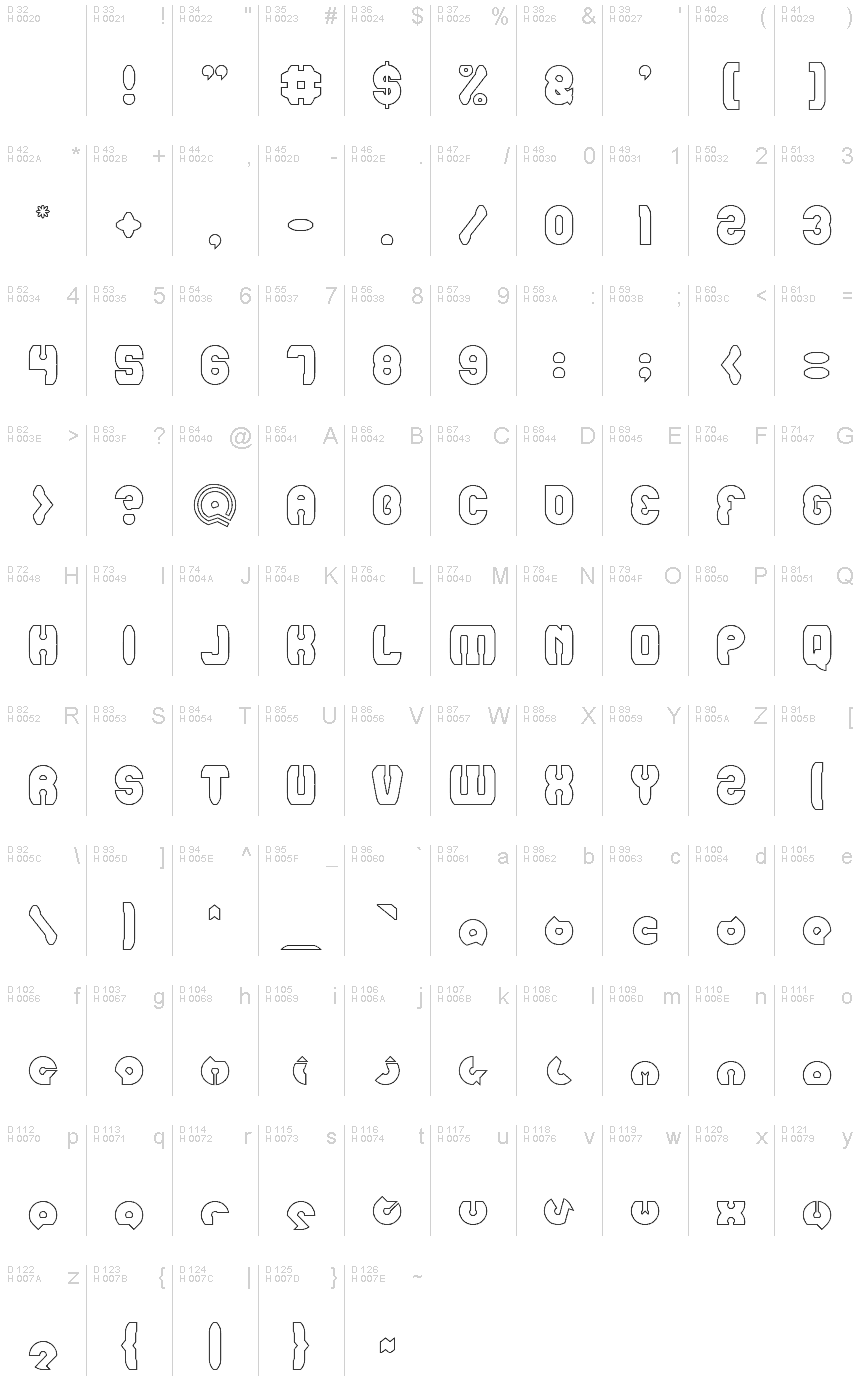
mohr-Hollow
Mohr Hollow is a captivating display font that exudes a bold and modern presence. Crafted with precision, its outlined letterforms create a striking visual impact, blending clean geometry with a touch of playfulness. The font's hollow interior lends it a distinct personality, inviting the viewer to explore the interplay of positive and negative space. Mohr Hollow's versatility makes it a compelling choice for a range of design applications, from eye-catching headings and logos to impactful branding and editorial layouts.
Its unique aesthetic can elevate both contemporary and vintage-inspired projects, lending a touch of refined elegance to any design composition.